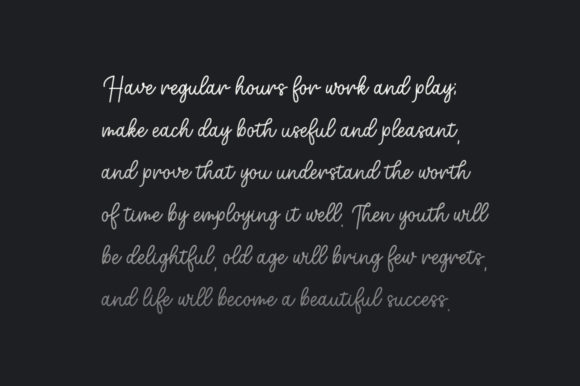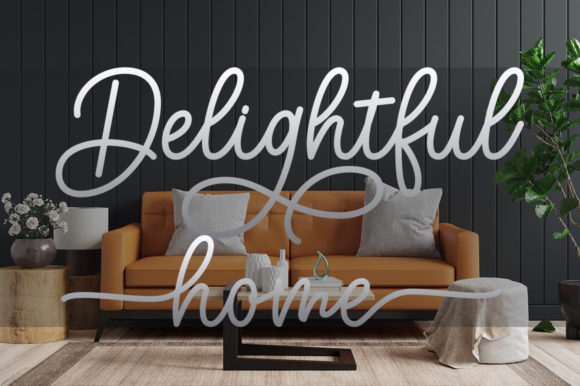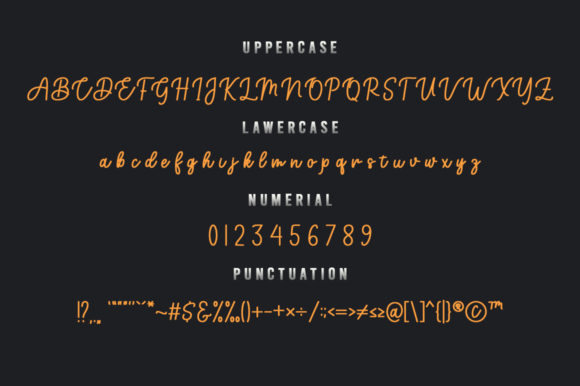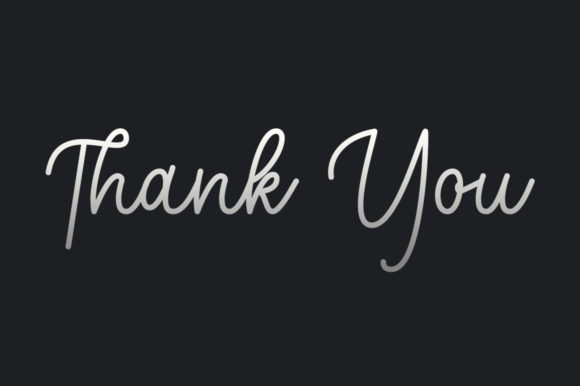
Delightful Font
About Delightful Font
Delightful is a delicate and flowing handwritten font that’s great for delivering any message with authenticity and charm. This font is PUA encoded which means you can access all of the glyphs and swashes with ease!